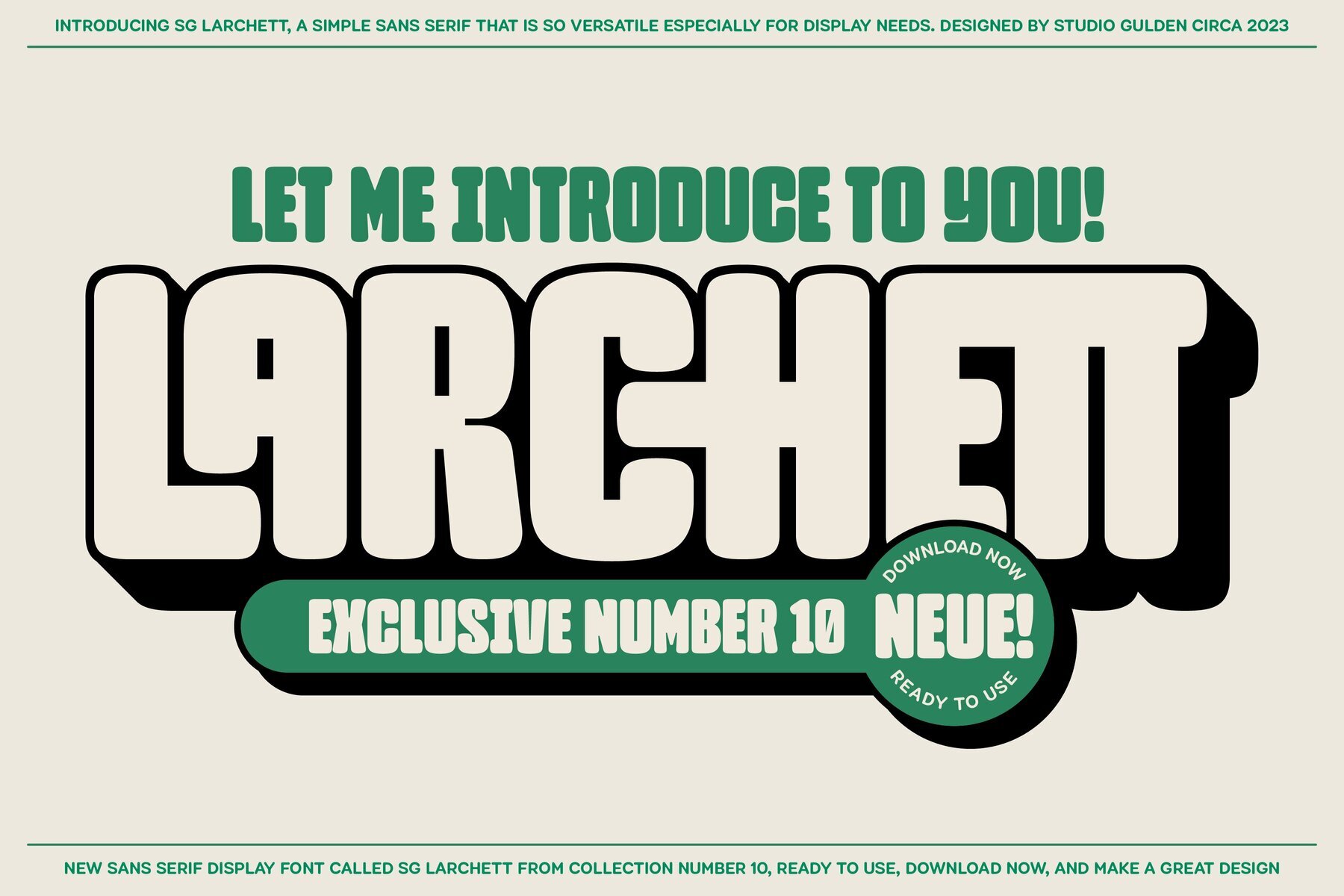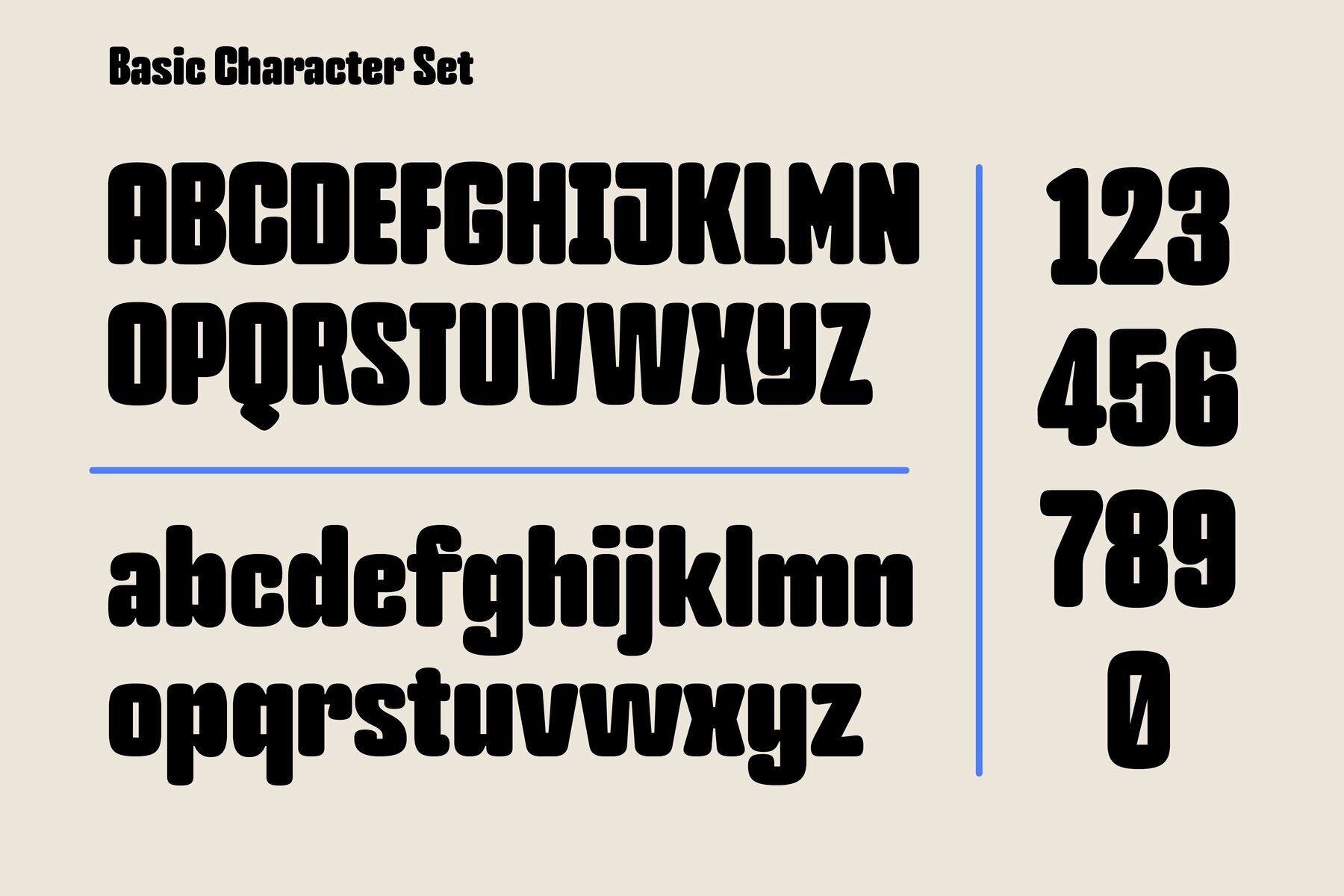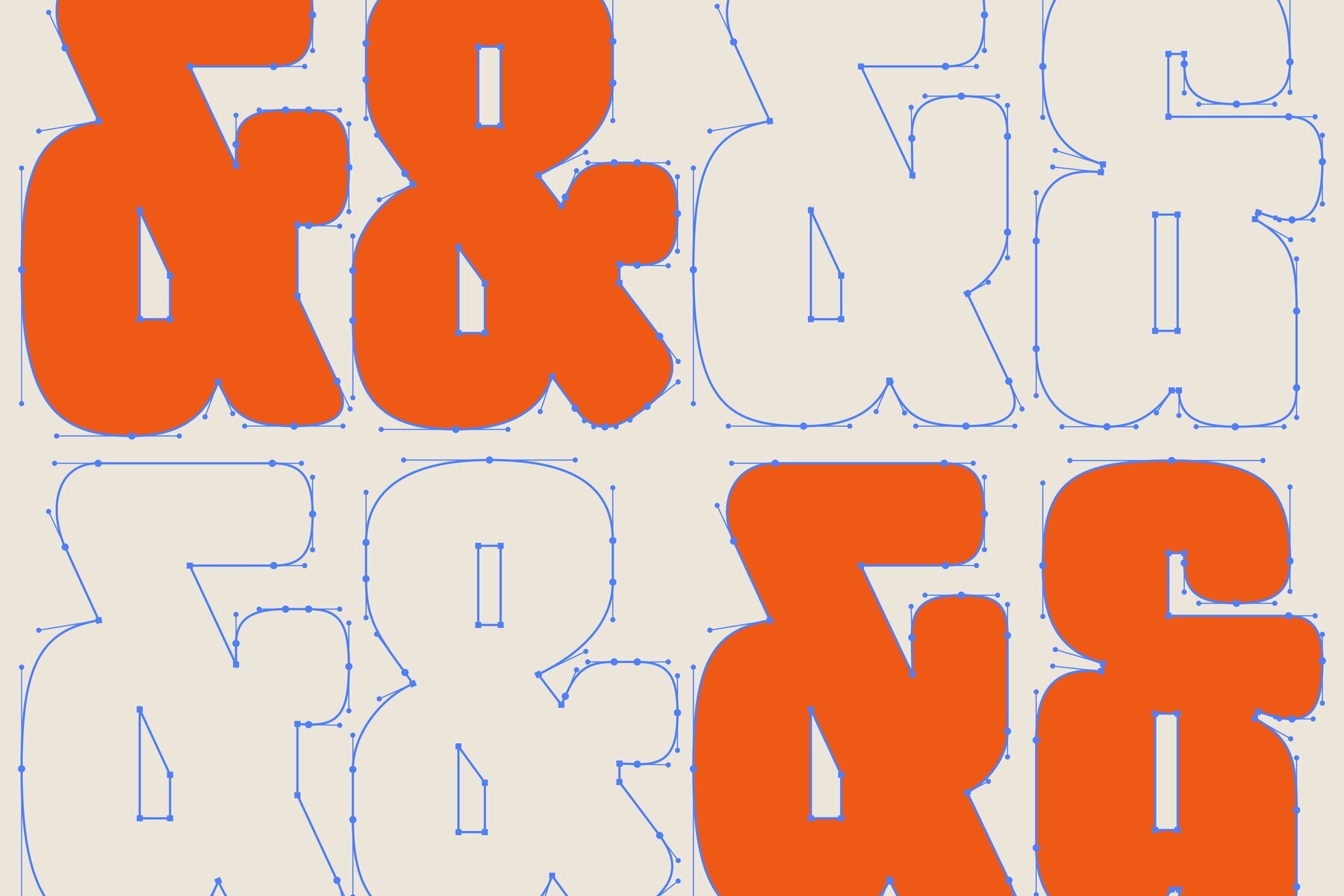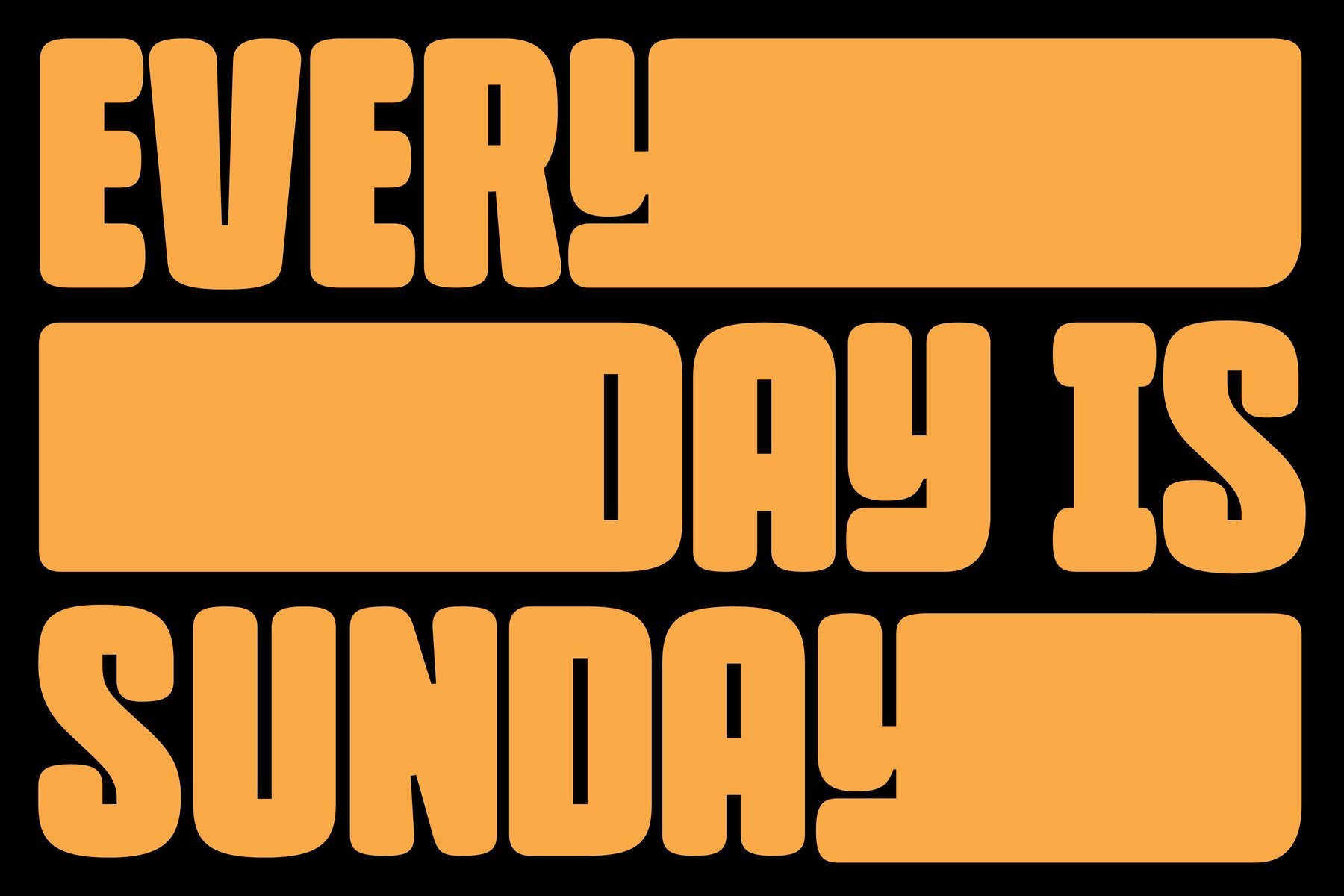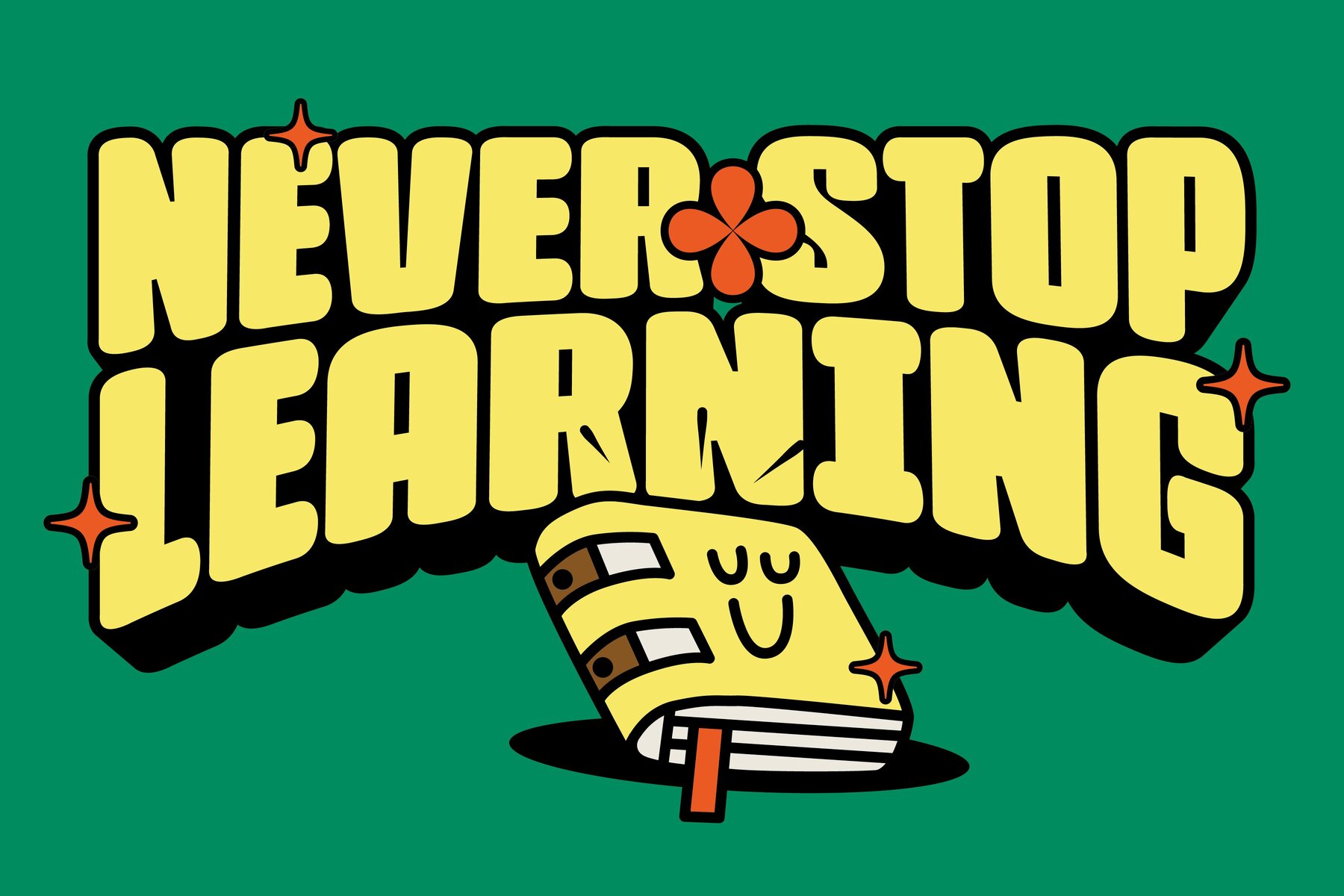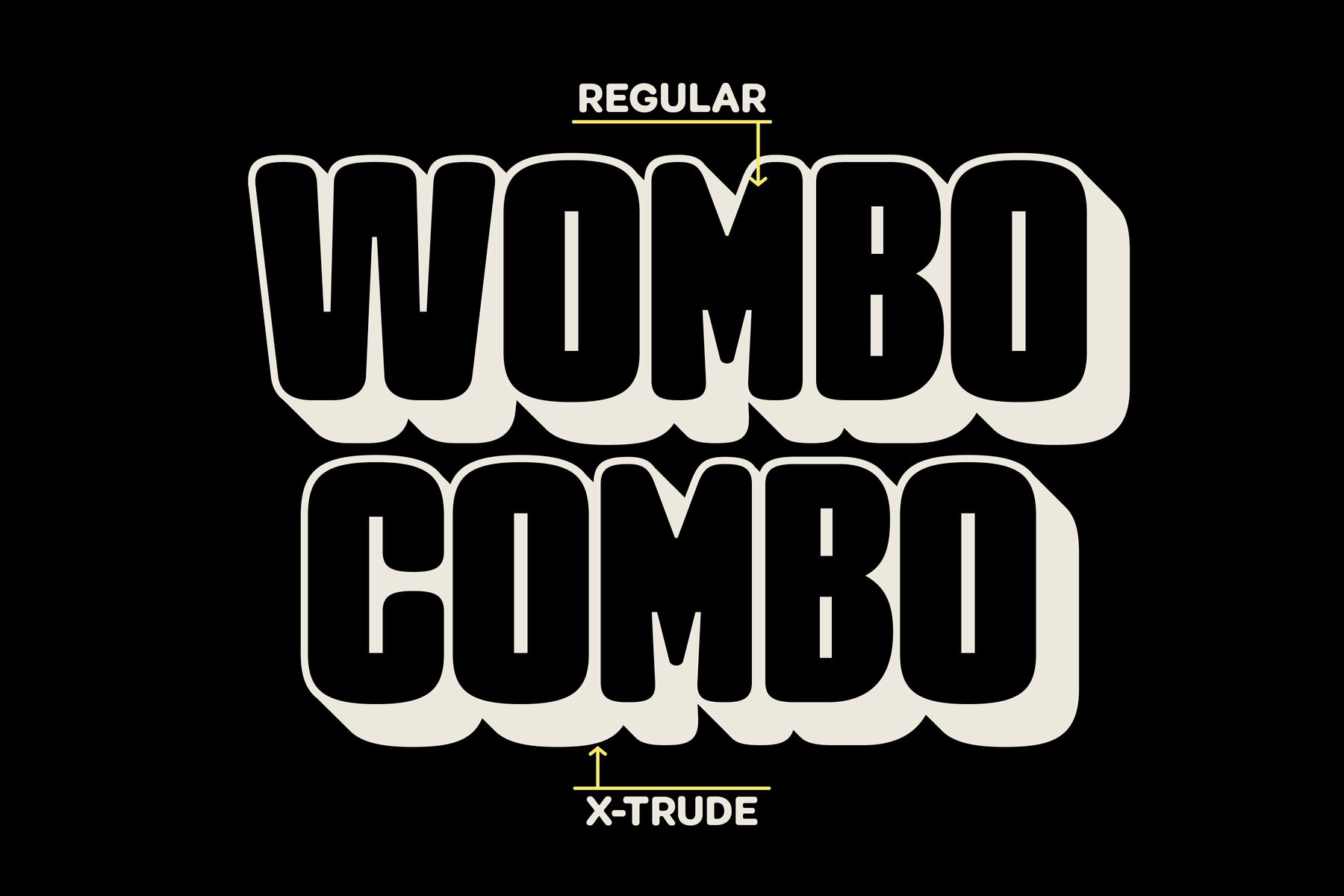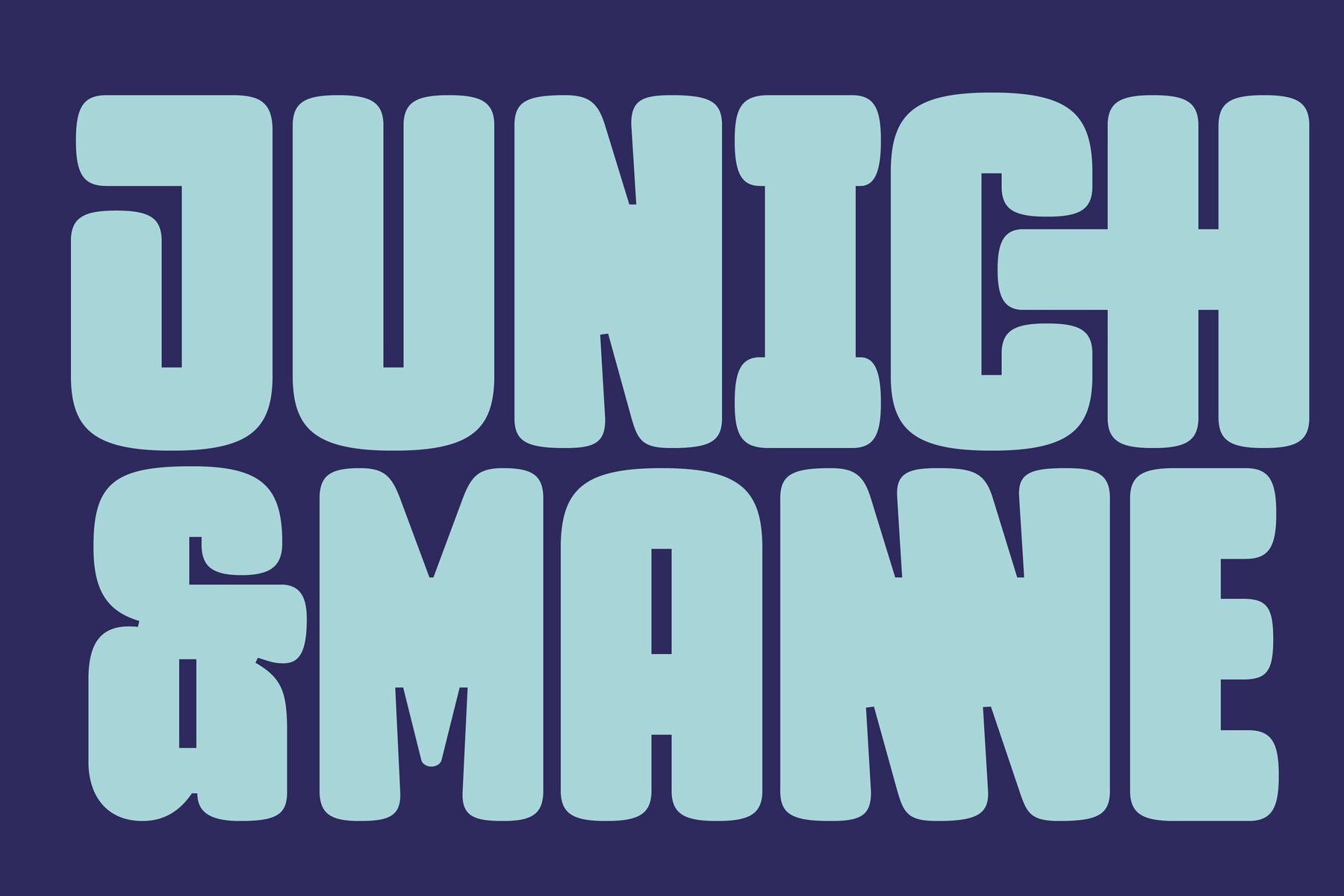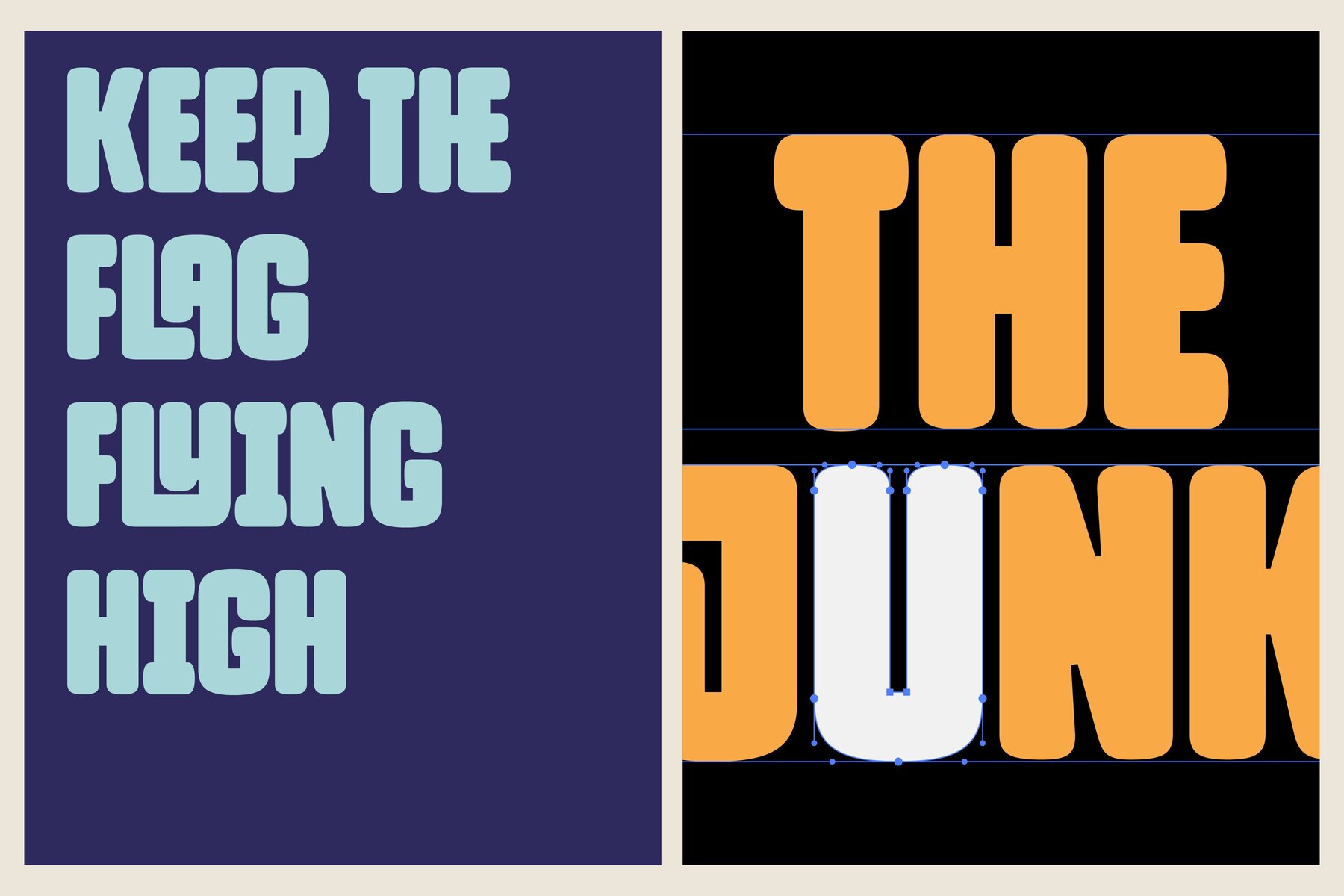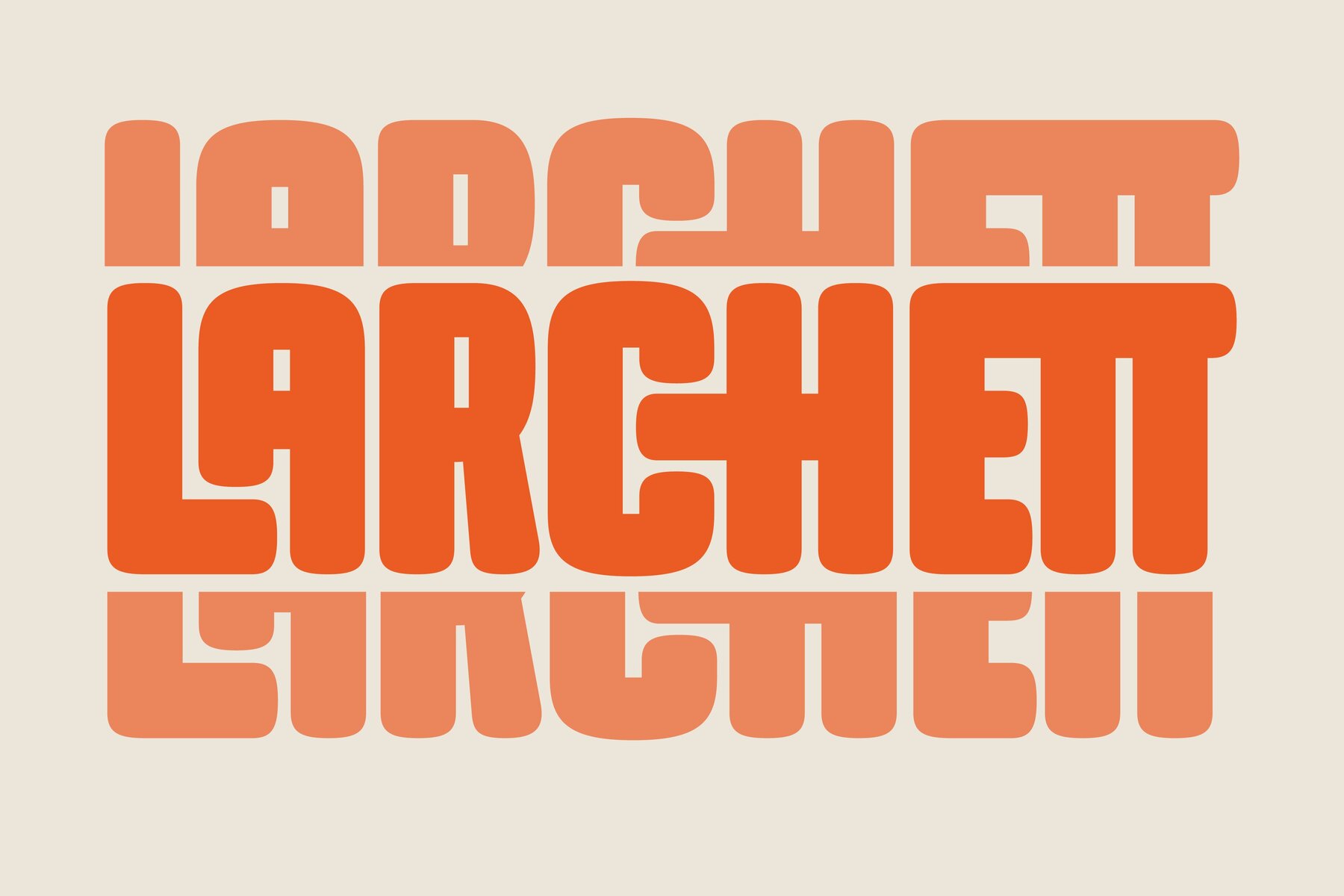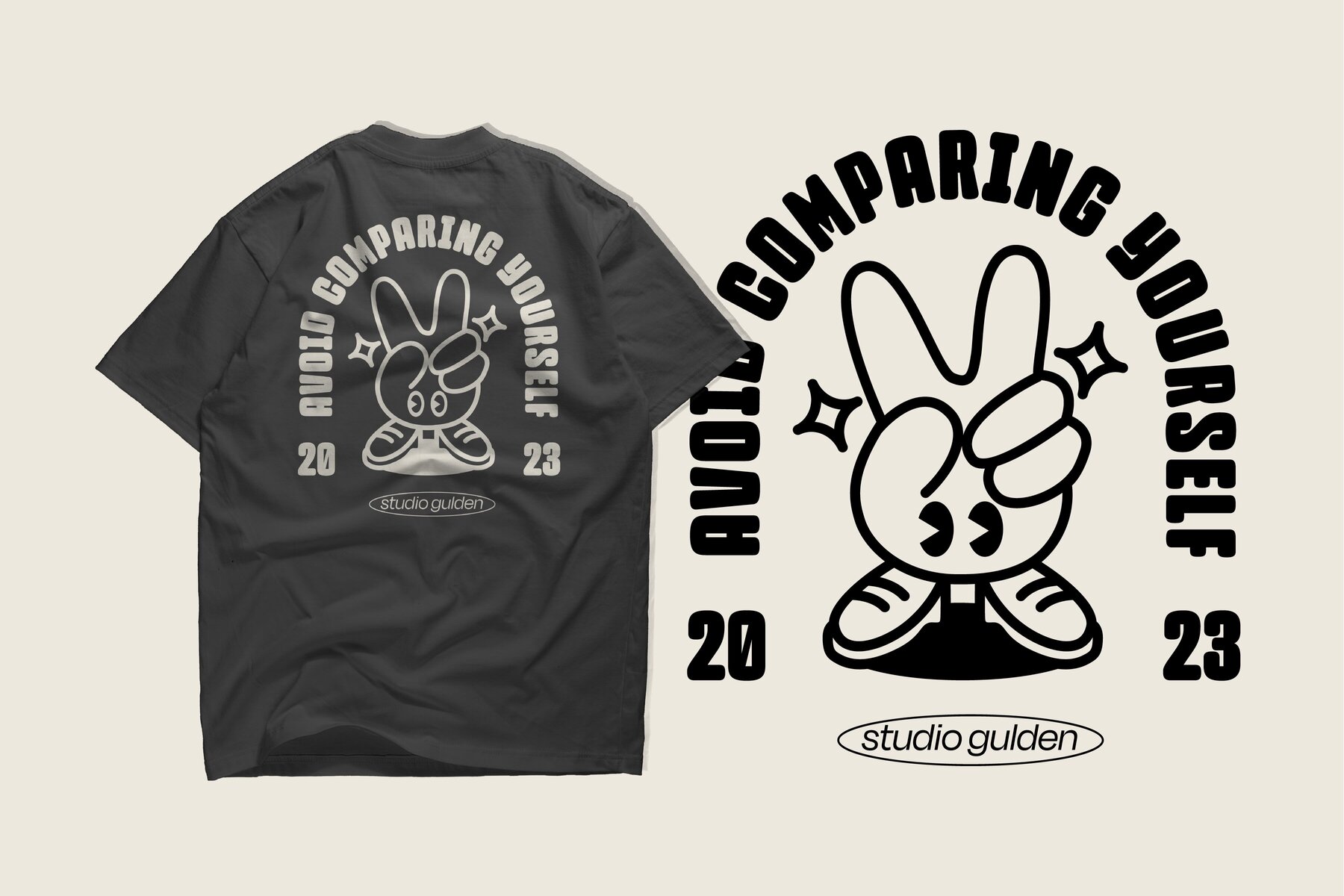
SG Larchett Font
SG Larchett Regular
SG Larchett X Trude
SG Larchett is a stunning new sans serif font perfect for display. It features clean, elegant lines and a modern, minimalist design that is stylish and versatile. The font is characterized by its balanced proportions, uniform stroke width, and subtle variations in letterform, giving it a distinctive and sophisticated appearance.
The unique features of SG Larchett make it ideal for use in a wide range of design applications, including branding, advertising, packaging, and web design. The font's clean, uncluttered lines and legibility make it easy to read even at small sizes, while its bold, striking appearance ensures that it stands out in any design.
SG Larchett is a font that commands attention, yet remains understated and refined. It is the perfect choice for designers looking to make a bold statement with their typography while maintaining a sense of elegance and sophistication. Whether used in headlines, logos, or body copy, SG Larchett is a font that will impress.